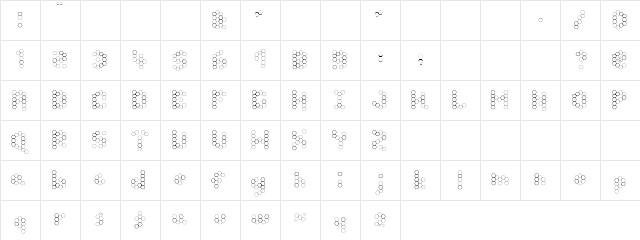
U Honeycombed Regular
Design Context for U Honeycombed Typeface
U Honeycombed is a composed and adaptable typeface that performs quietly and consistently across a wide range of design contexts.